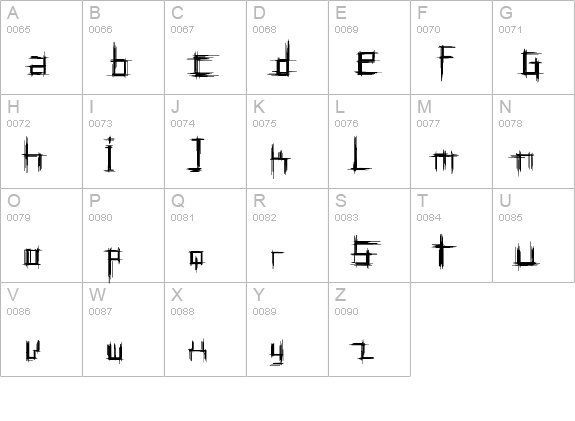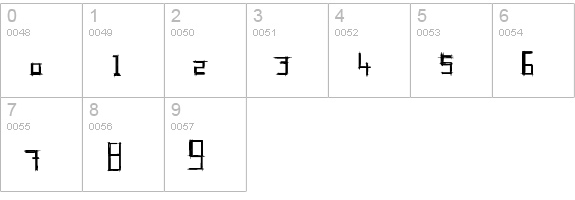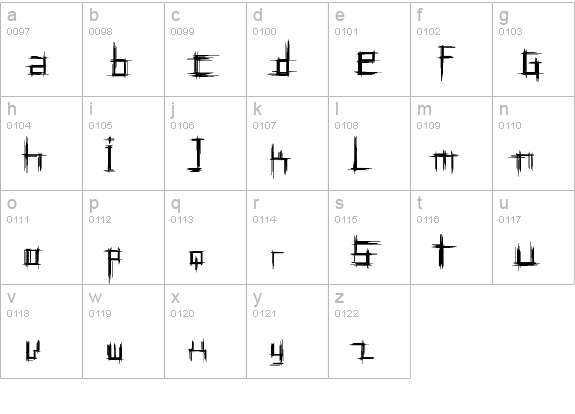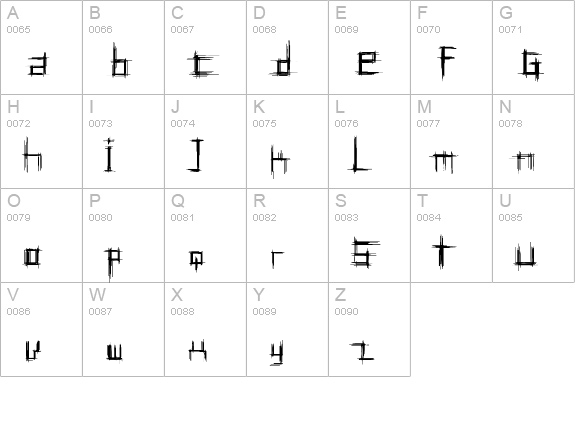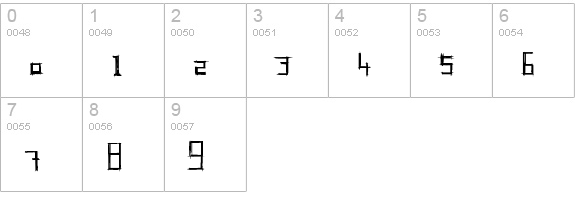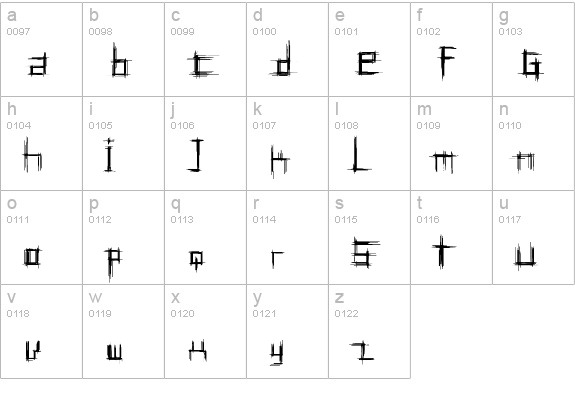
Bruised Ten Font Details
Introducing Bruised Ten font, a unique and edgy typeface that brings a touch of roughness and character to your designs. This bold and impactful font features a distressed look with jagged edges, giving it a bruised and weathered appearance. Perfect for adding a touch of rebellion and attitude to your projects, Bruised Ten font is ideal for posters, album covers, and branding materials that require a dose of raw energy. Best of all, Bruised Ten font is available for free download at FontsMarket.com. This means you can easily access this striking font and incorporate it into your designs without any cost. Don't miss out on the opportunity to enhance your creative projects with the unique style and personality of Bruised Ten font. Download it now and let your designs stand out with its distinctive charm.